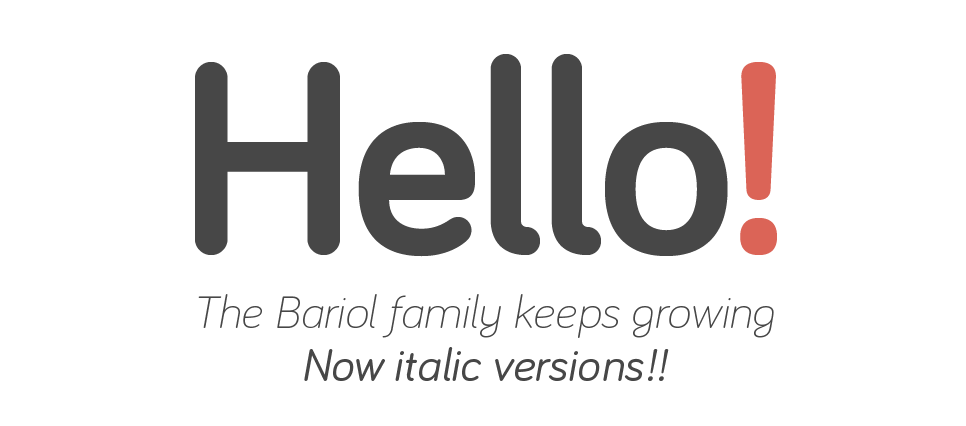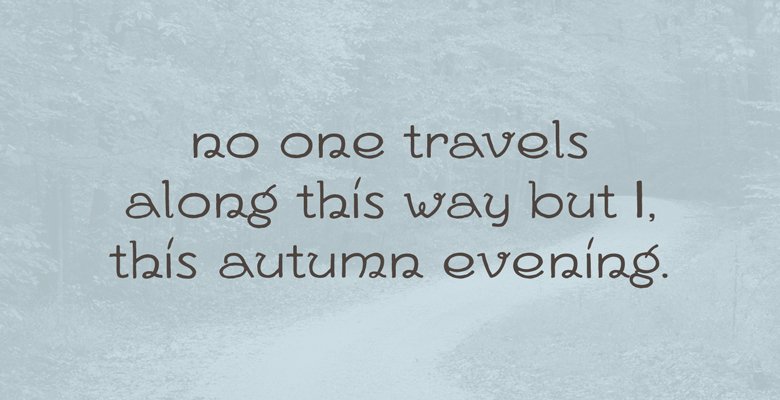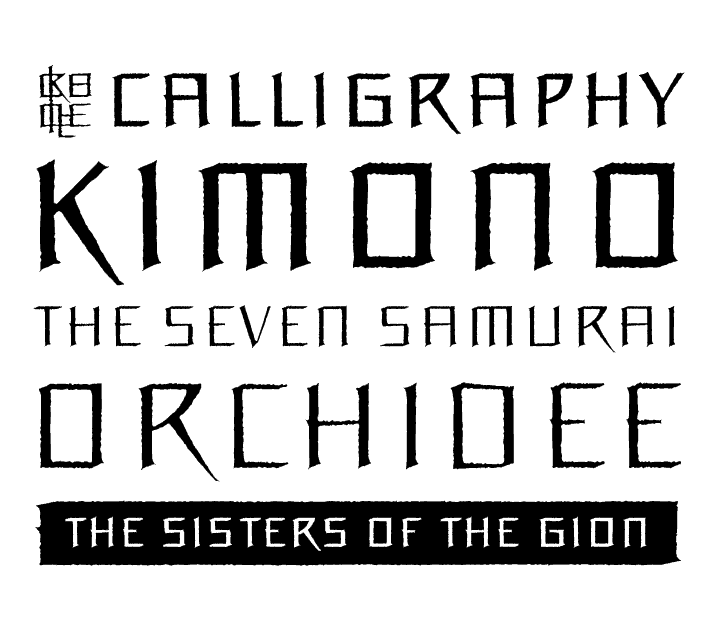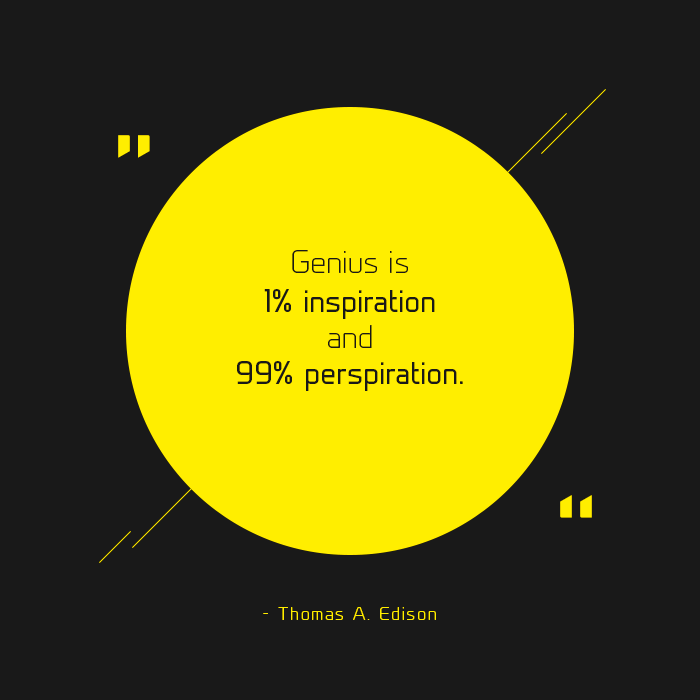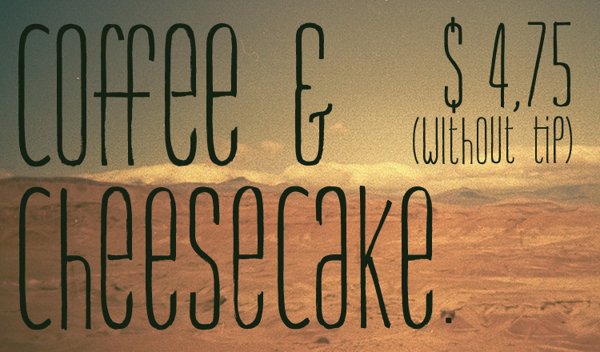
Orchidee
Author: Felix Braden
Description: Orchidee is a hand drawn display font, that has a distinct ancient like Japanese look to it.
Skinny Marker
Author: Daniel Samama
Description: It is all in the name, a skinny marker hand drawn type face.
Prime
Author: Max Prisky
Description: “Simple typeface with a techie feel and a strict, geometric origin. I wanted to create something that offers great readability in various sizes yet still offers enough subtle differences to stand out.”
FV Deventer
Author: Floris Voorveld
Description: “This is a one of a kind font, based on the typography jewel smiths used to braze onto filigree over a century ago. It has graceful curves yet rough edges.”
Bariol
Author: Atipo
Description: Bariol is nice rounded font, that might be perfect for logo types.